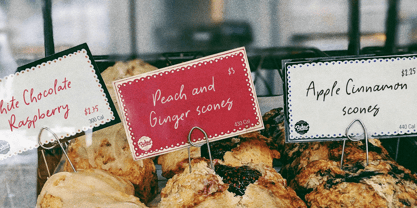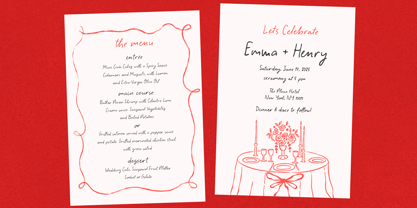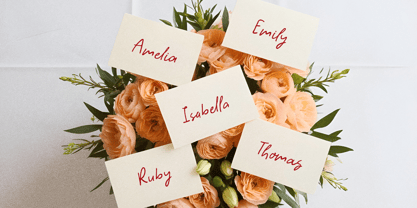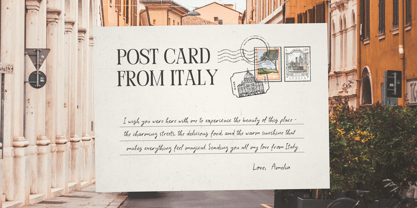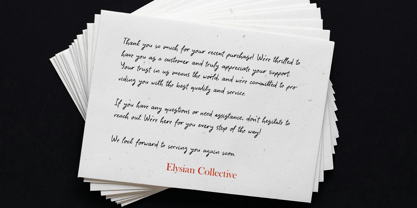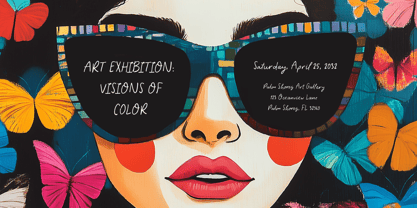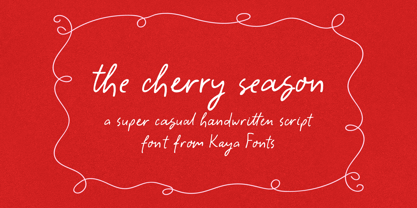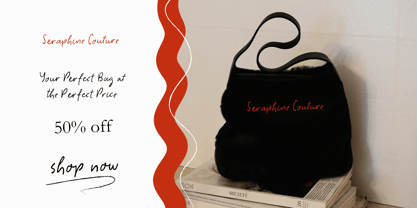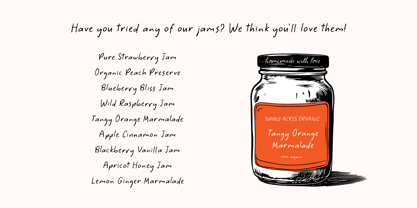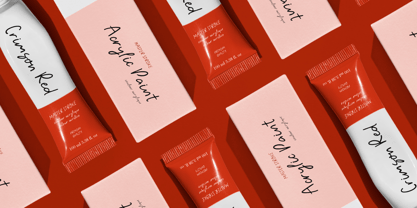
The Cherry Season
by Kaya Fonts
The The Cherry Season Font Family was designed by Fatih Kaya and published by Kaya Fonts. The Cherry Season contains 1 styles.
Happy to introduce The Cherry Season, a super casual ligature based script font. It is ideal for invitations, greeting cards, logos, branding, social media, printed goods, or anything that needs a touch of personality.
• Organic, ligature based, semi-connected script font.
• Standard characters (two sets of lowercase and uppercase, numbers, punctuation)
• 110+ Standard Ligatures
• Whimsical & realistic handwriting